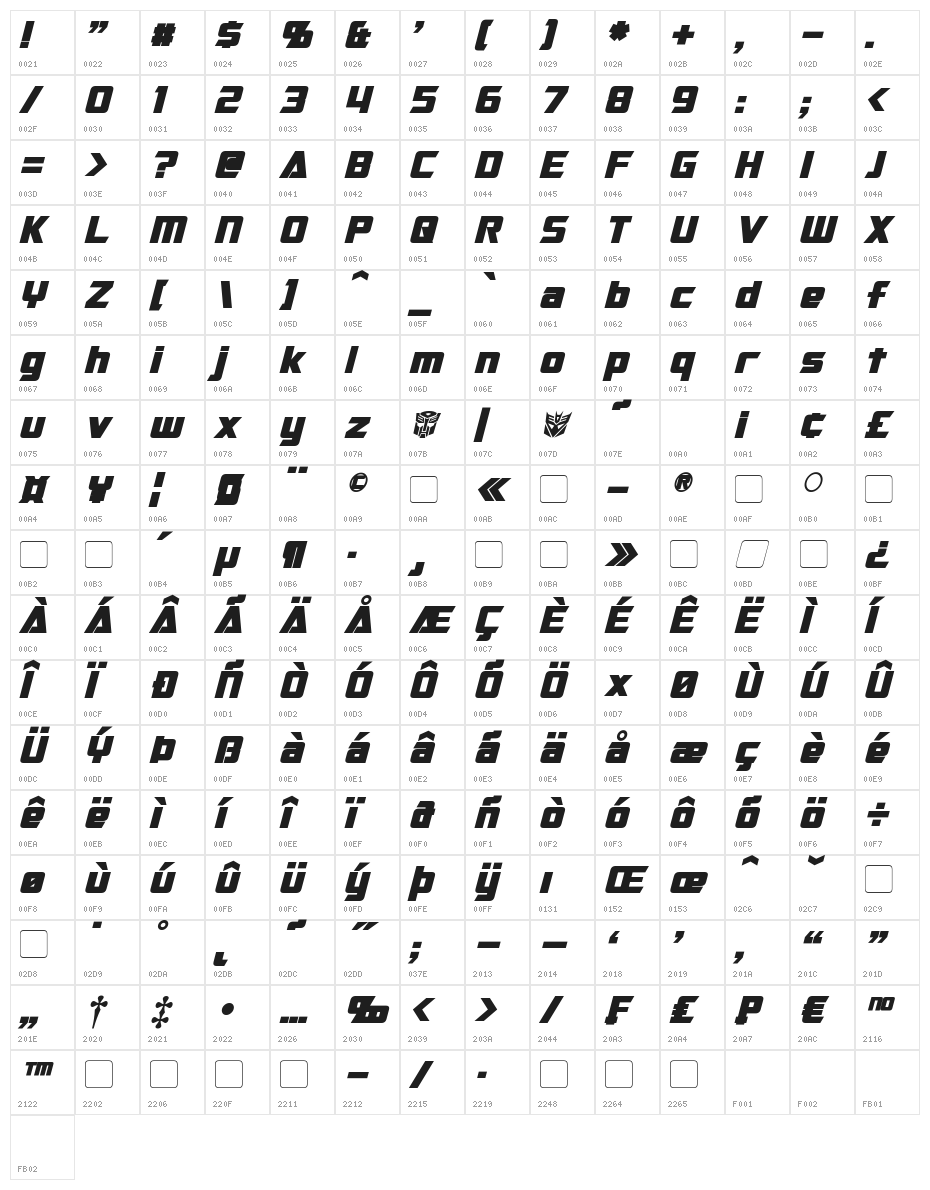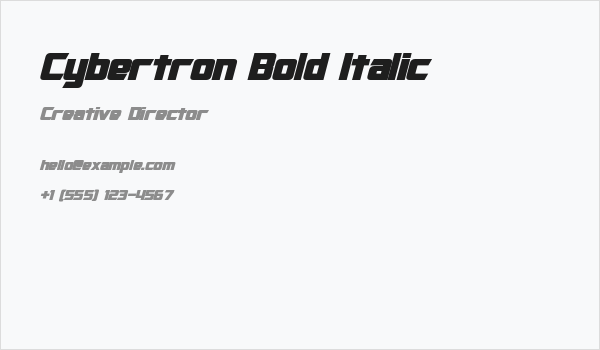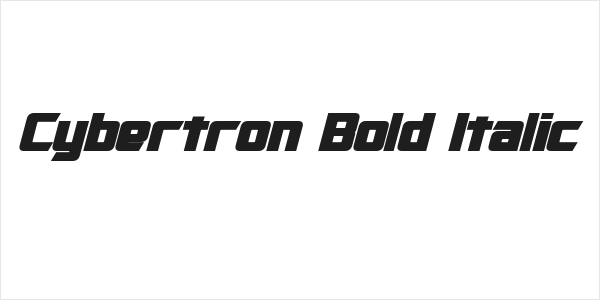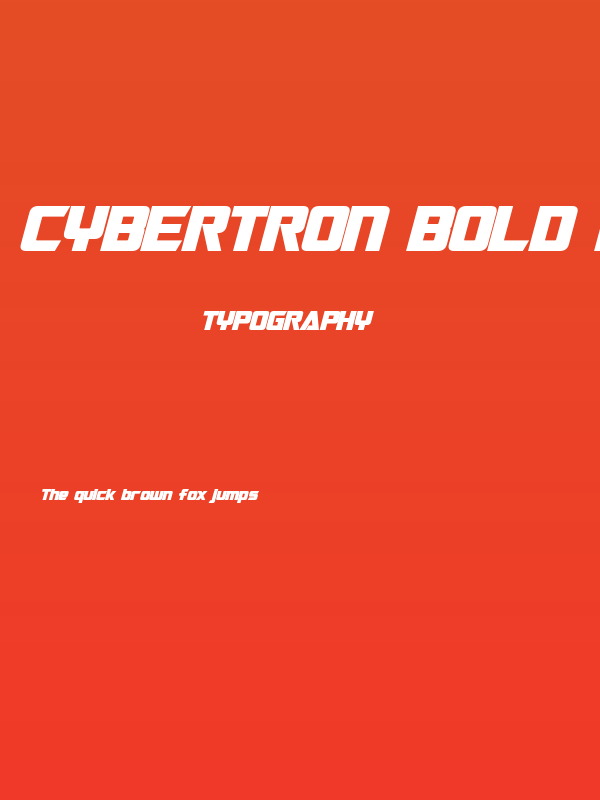
Cybertron Bold Italic Font
Cybertron Bold Italic Description
This font features a bold and italicized style with a futuristic and dynamic appearance. The characters are sharply angled, giving a sense of motion and speed. The uppercase and lowercase letters maintain a consistent slant, enhancing the italic effect. The numerals and special characters are designed to match the boldness and angularity of the alphabet, ensuring uniformity across all glyphs. The font's overall aesthetic is modern and tech-inspired, making it suitable for projects that require a strong, impactful visual presence.
| Proposed Projects | Ideal for technology branding, sci-fi movie posters, video game titles, and sports team logos. |